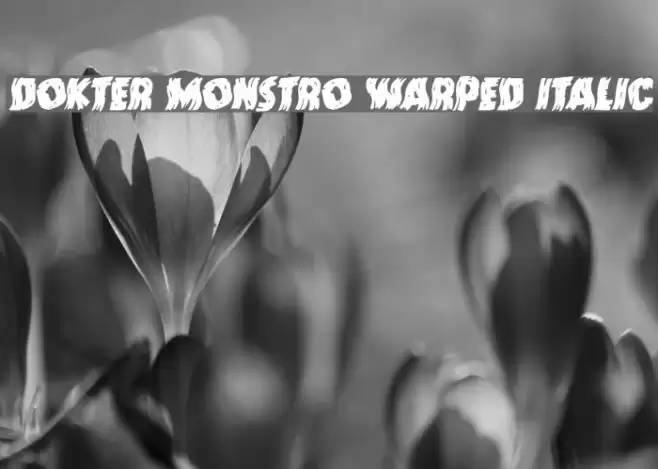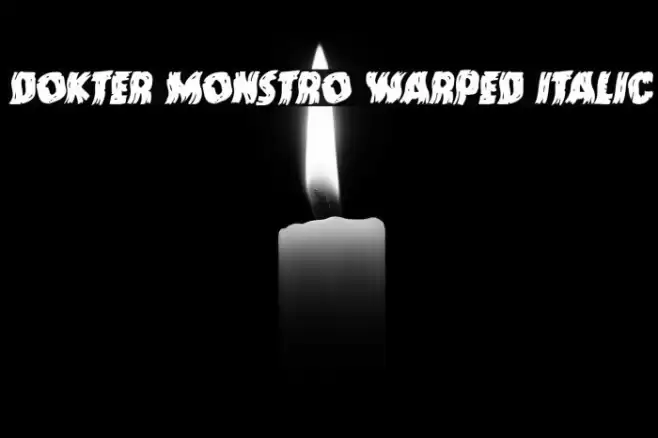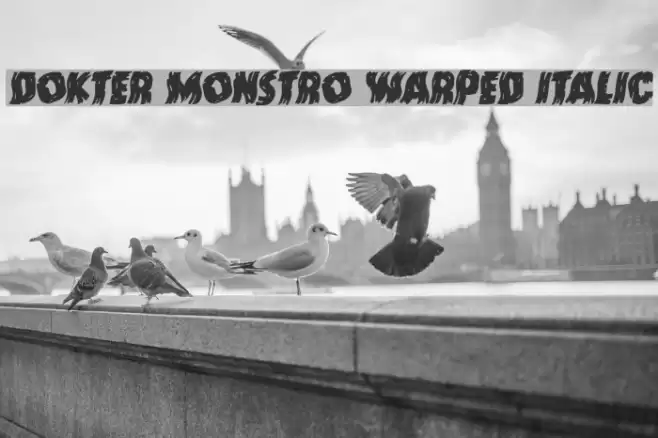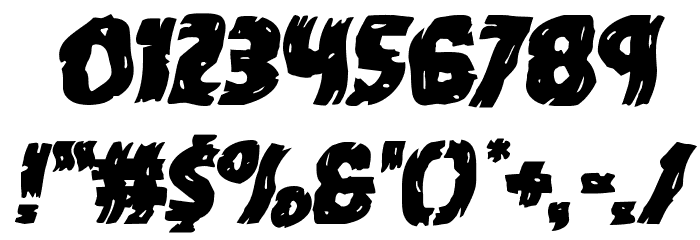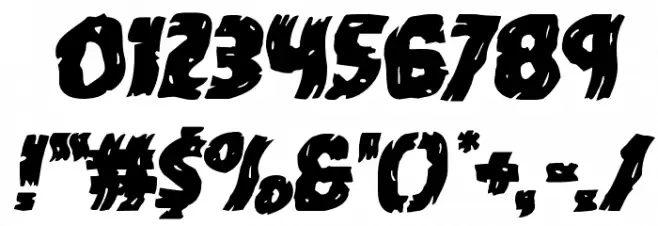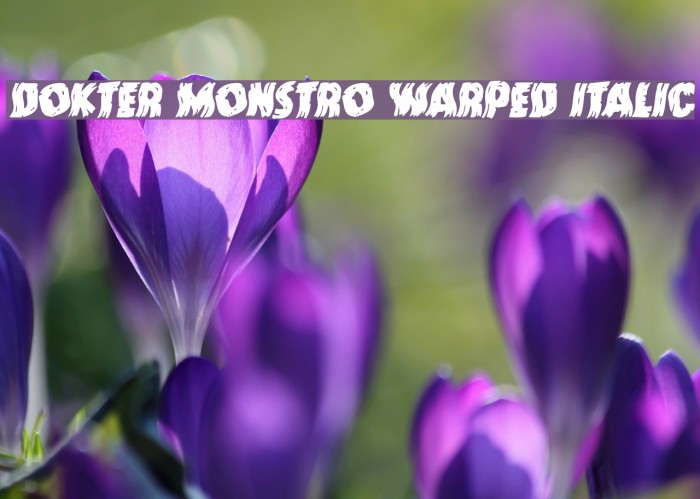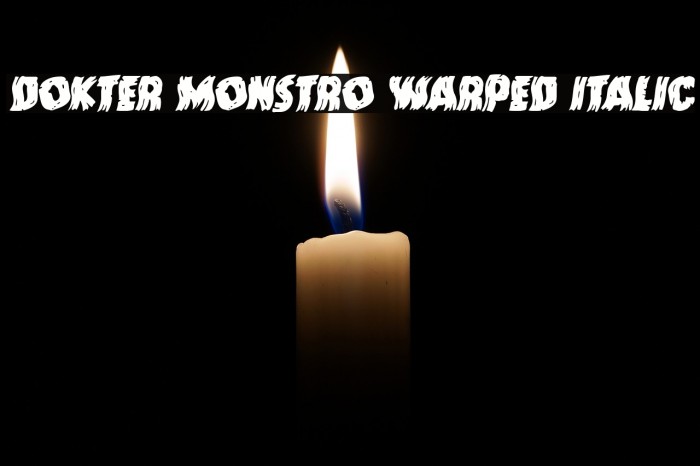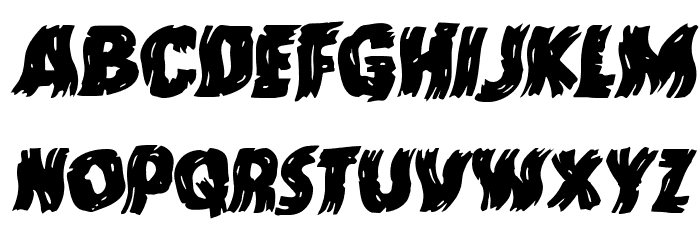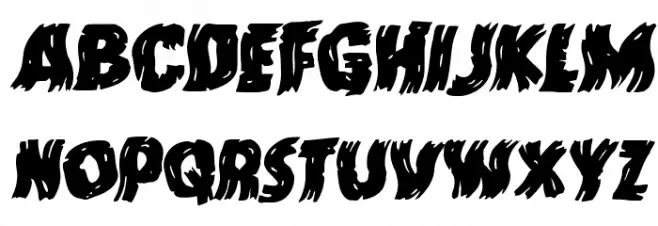
Dokter Monstro Warped Italic Font
Dokter Monstro Warped Italic Description
This font features a bold and dynamic design with a warped, distorted appearance that gives it a unique and edgy look. The characters are heavily stylized, with exaggerated curves and angles that create a sense of movement and energy. The font's bold weight and irregular shapes make it stand out, making it ideal for attention-grabbing designs. Its playful yet aggressive style is reminiscent of horror or comic book themes, making it suitable for projects that require a dramatic and impactful visual presence. The font's distinctiveness is further enhanced by its italic slant, adding to its dynamic and unconventional aesthetic.
A bold, warped, and italic font with a dynamic and edgy style from Uncategorized fonts.
- Proposed Projects: Ideal for horror-themed posters, comic book titles, Halloween invitations, and edgy branding materials.